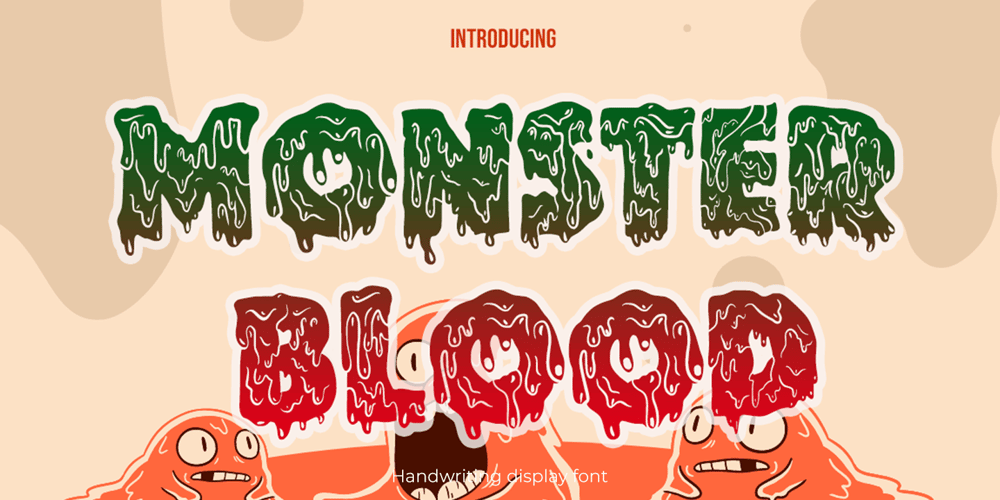
Monster bloody Font Family was designed by Muhammad Zaini and published by Cocodesign. Monster bloody contains 1 styles and family package options. Hello allMonster bloody display is an elegant and contemporary font suitable for those of you who want toadd a new font to a design.You must have Monster blood, what are you waiting for?